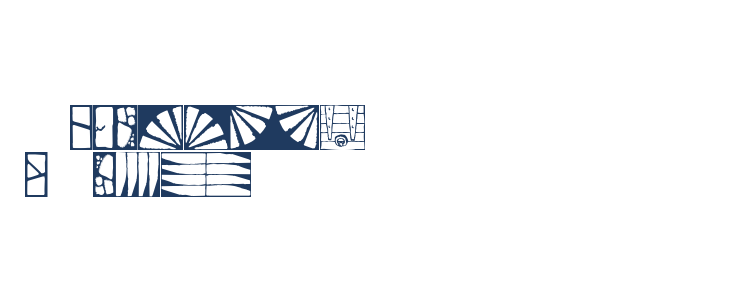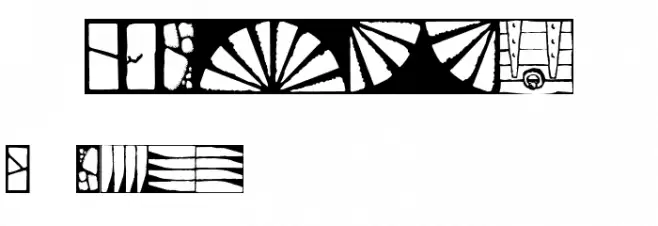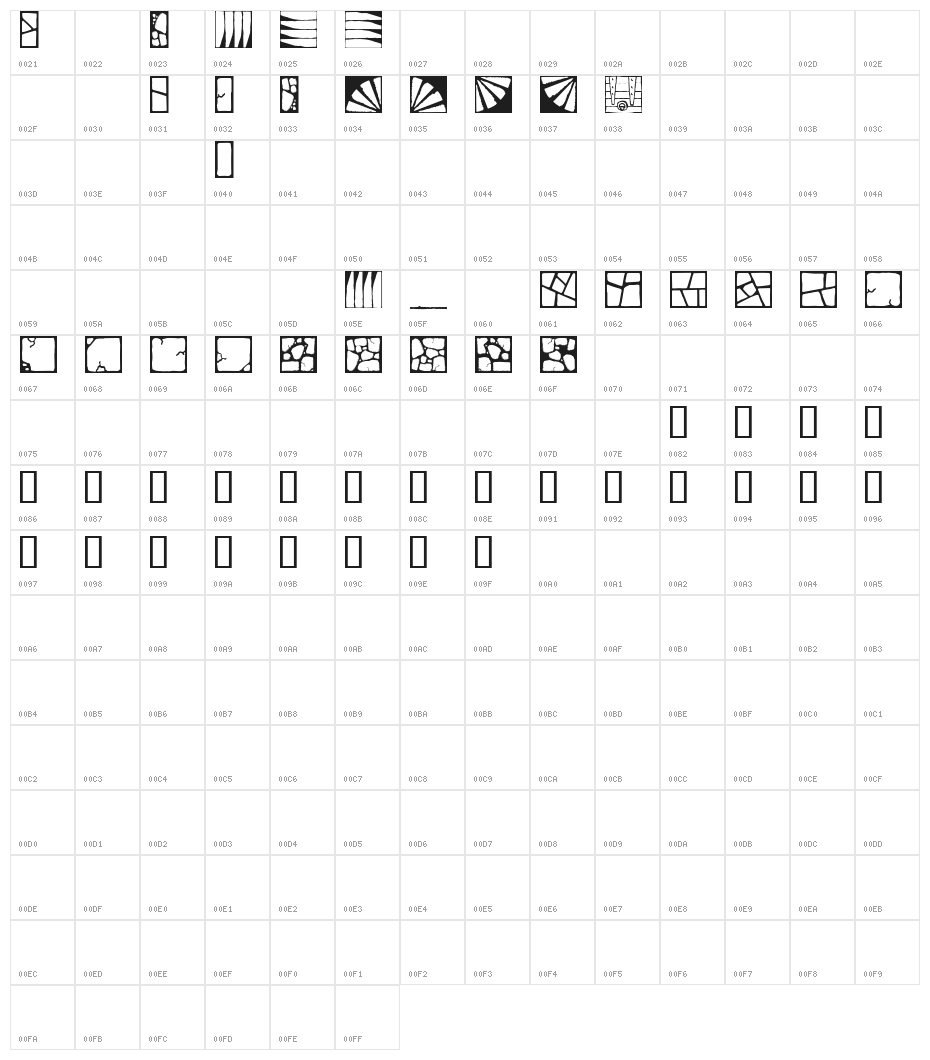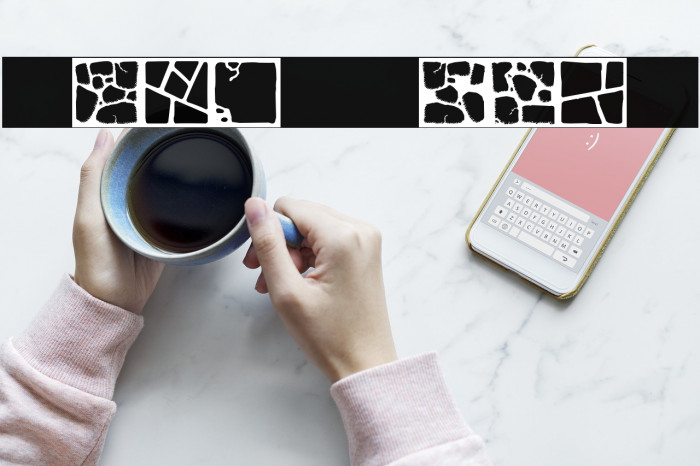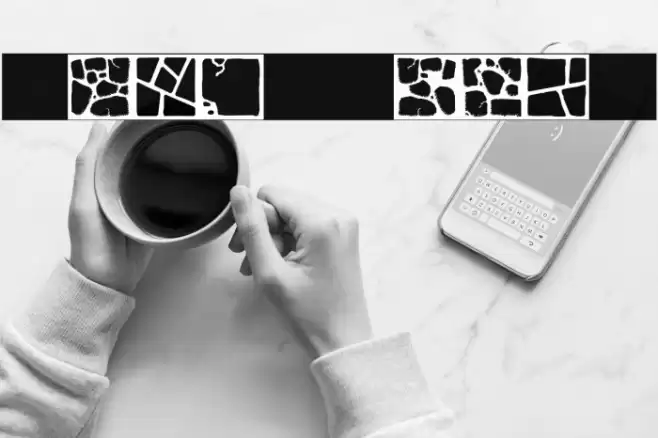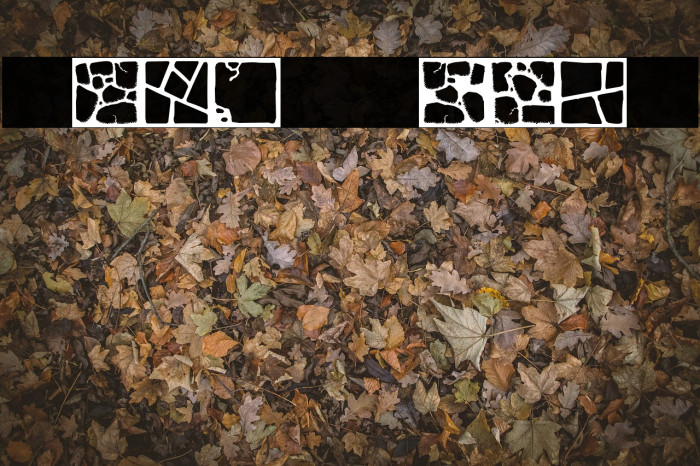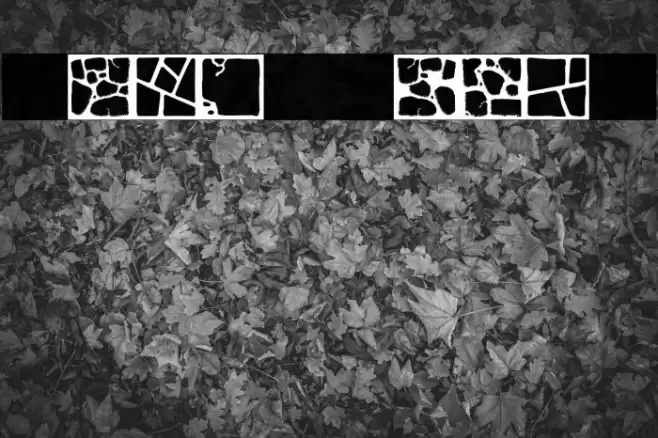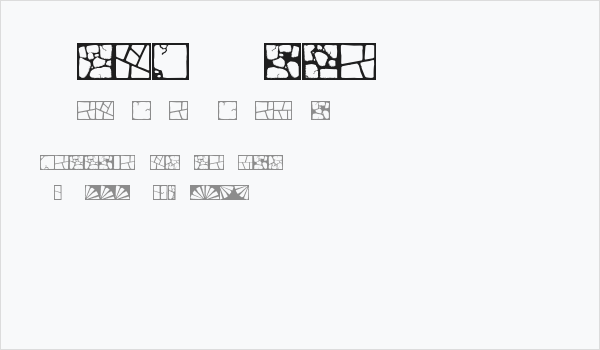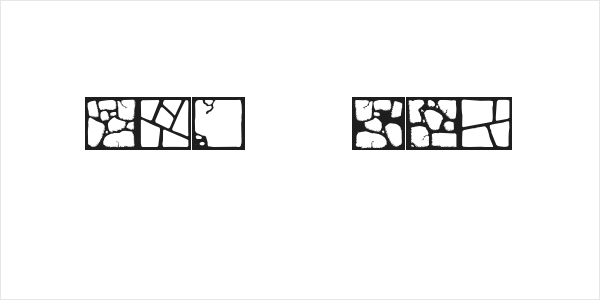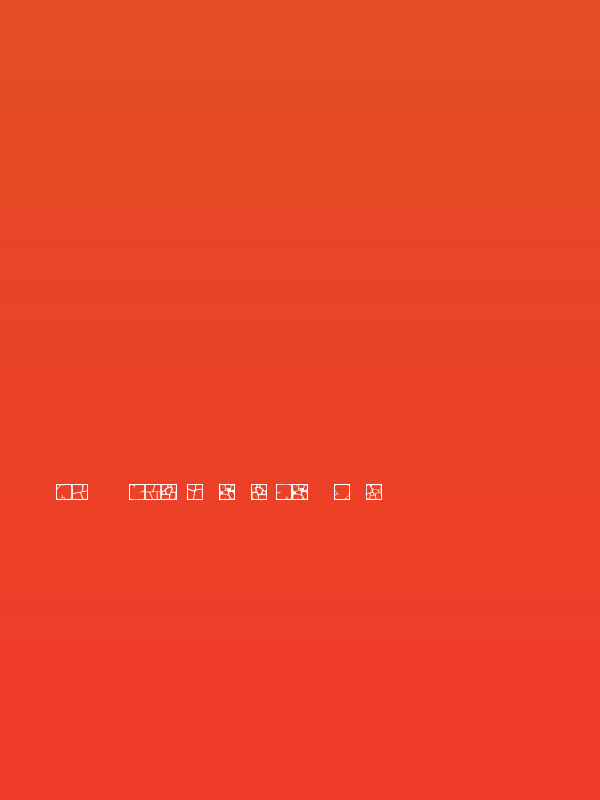
Flagstones Font
Flagstones Description
A decorative display typeface mimicking the appearance of flagstone or mosaic tiles, with each character formed by irregular stone-like shapes and thick, uneven outlines. The glyphs are highly stylized and abstract, prioritizing texture and pattern over legibility.
| Overall Style | Decorative, Organic, Playful |
| Use Case | Logos, Headlines, Posters, Themed graphics |
| Proposed Projects | Fantasy maps, game titles, themed invitations, signage for parks or gardens, childrenΓ’β¬β’s books, creative posters. |